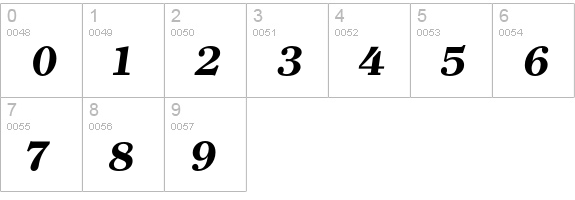
Clerface-BoldIta Font Details
Clerface-BoldIta is a sleek and modern font that exudes sophistication and style. Its bold and italic design adds a touch of elegance to any project, making it ideal for headlines, titles, and other attention-grabbing text. The unique combination of sharp angles and flowing curves gives Clerface-BoldIta a distinct personality that sets it apart from other fonts. What's even better is that Clerface-BoldIta is available for free download at FontsMarket.com. You can easily add this versatile font to your collection without any cost, making it a valuable resource for all your design needs. Whether you're working on a branding project, creating eye-catching posters, or designing a sleek website, Clerface-BoldIta is sure to elevate your work to the next level. Download it now and unleash your creativity with this stunning font.